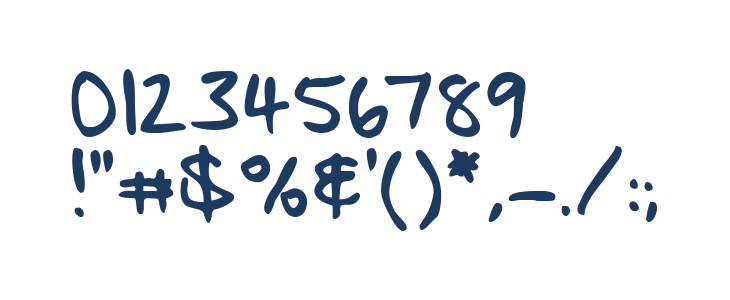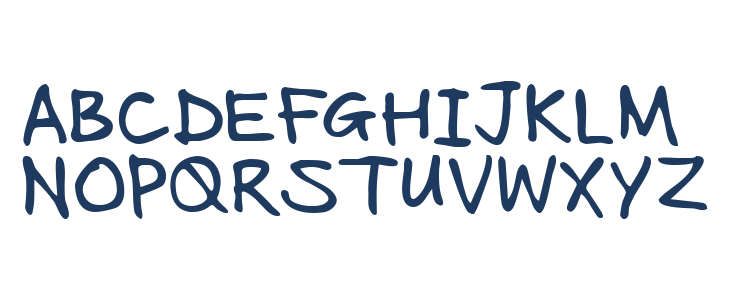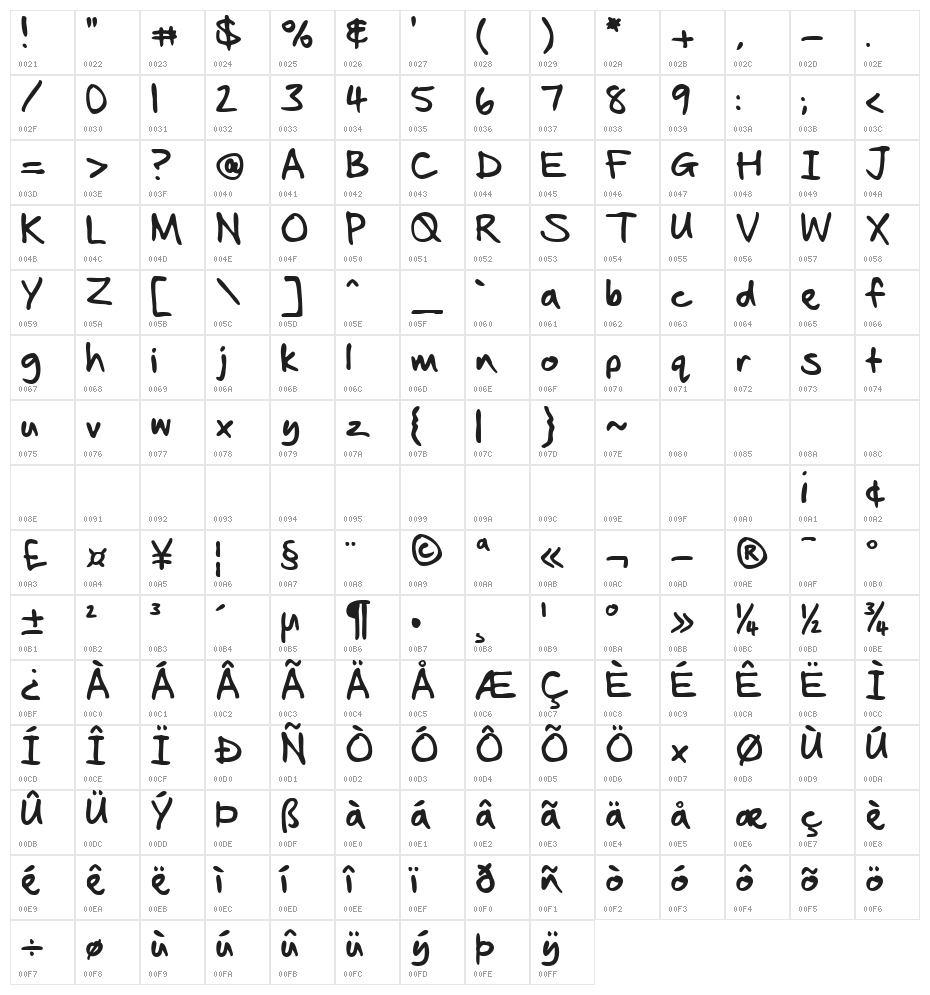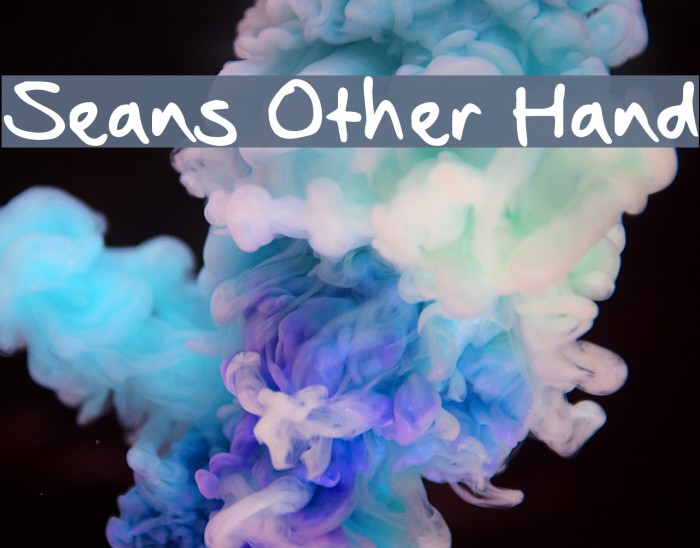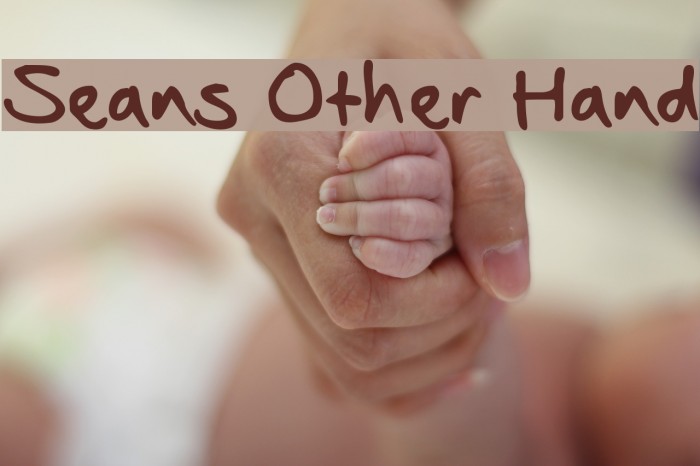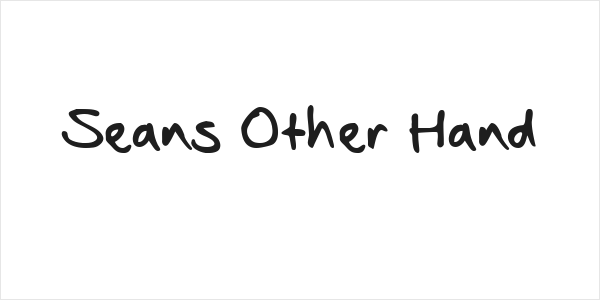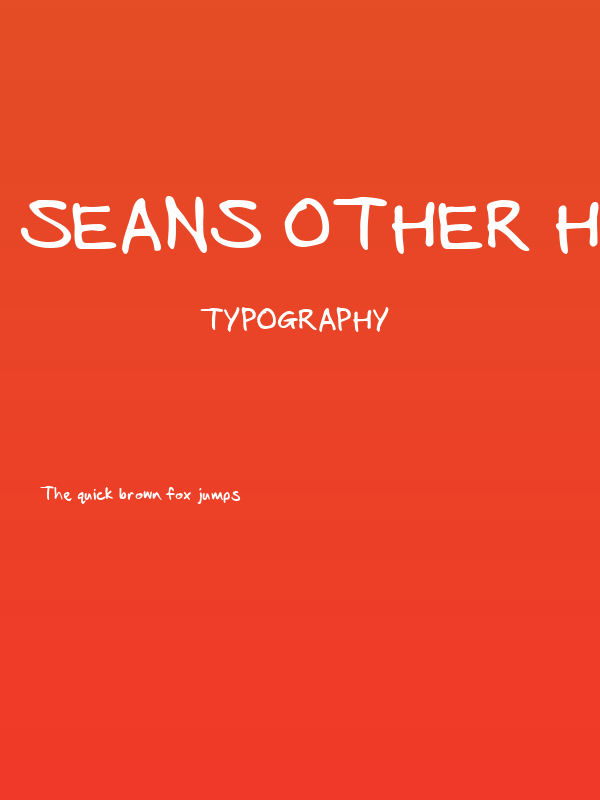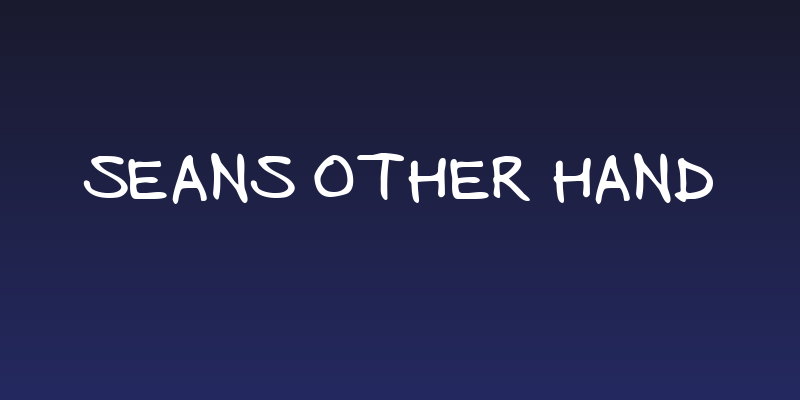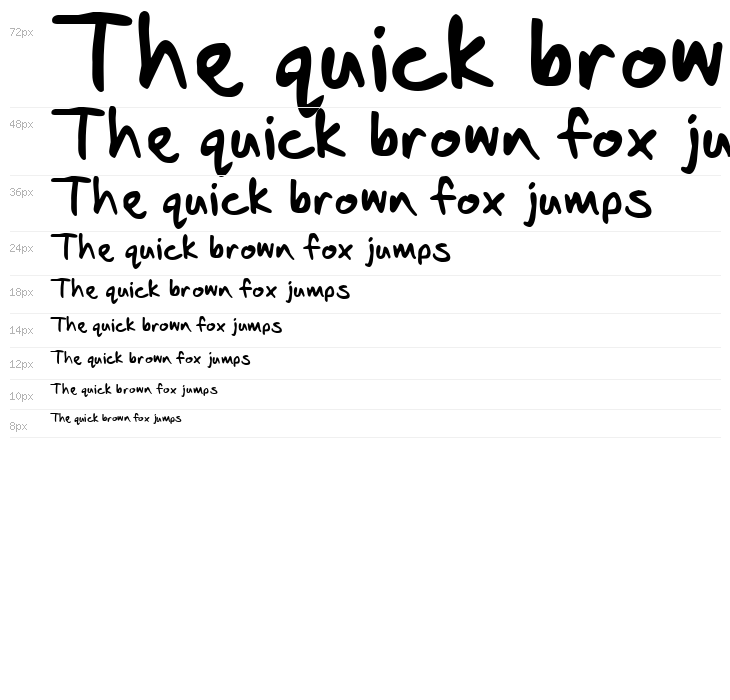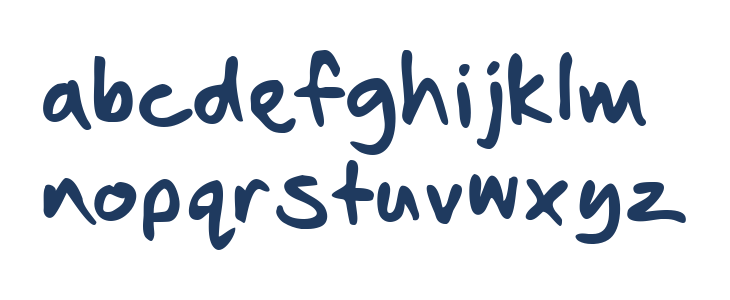
Seans Other Hand Font
Seans Other Hand Description
This font exudes a playful and casual handwritten style, characterized by its uneven strokes and organic flow. The letters have a natural, informal appearance, reminiscent of personal notes or doodles. Each character varies slightly in height and width, adding to the authentic handwritten feel. The font maintains a consistent baseline, while the strokes are moderately thick, providing good readability. The overall design is approachable and friendly, making it suitable for projects that require a personal touch. The numerals and special characters follow the same informal style, ensuring a cohesive look across all text elements.
| Use Case | Headlines, Informal text, Personal notes |
| Proposed Projects | Ideal for greeting cards, personal blogs, children's books, and informal branding projects. |